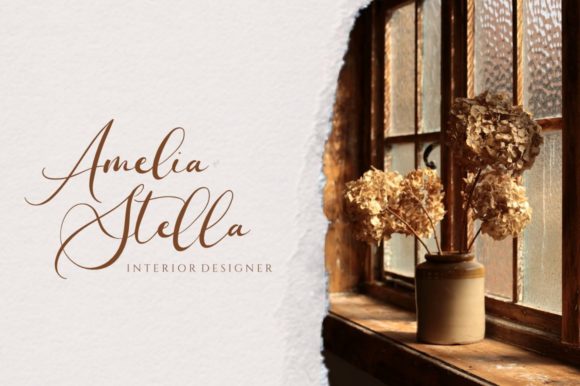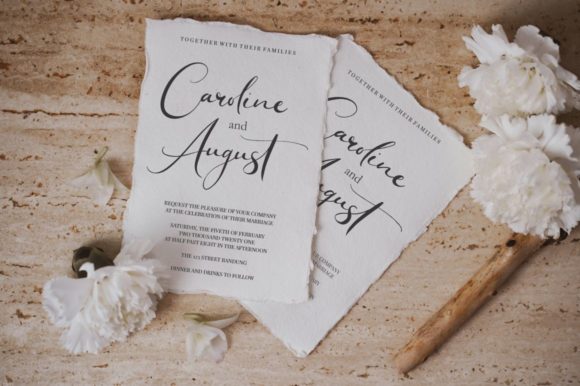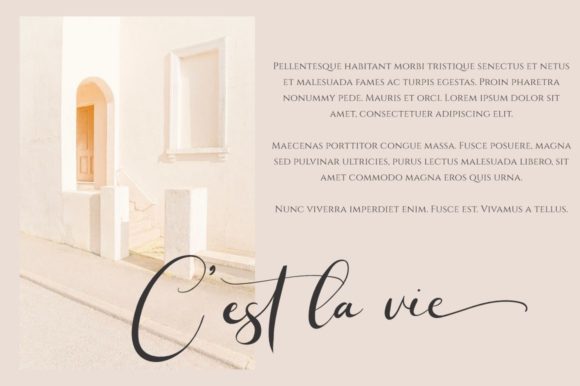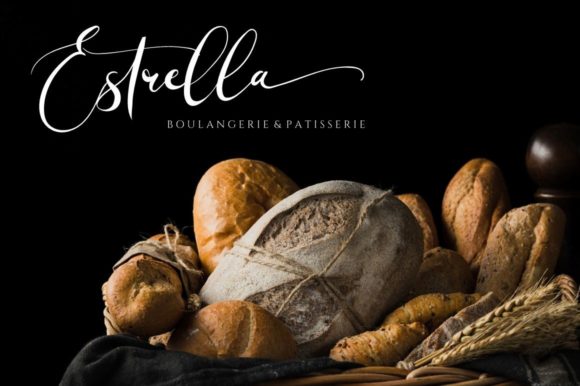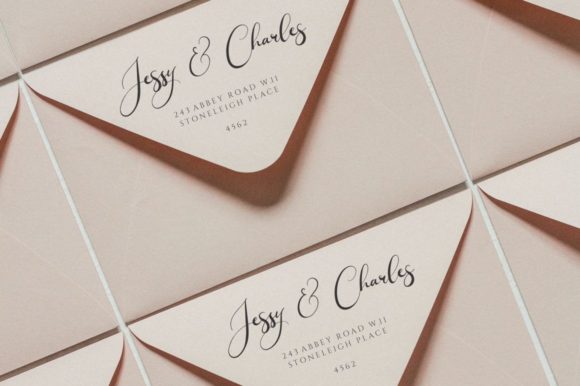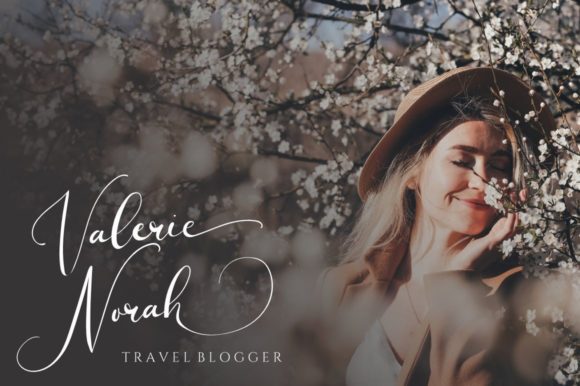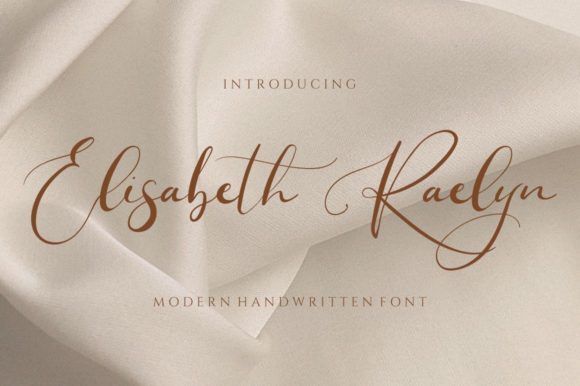
Introducing Elisabeth Raelyn Font: Elevate Your Designs with Elegance
Are you on the hunt for a font that exudes luxury and sophistication? Look no further than the Elisabeth Raelyn Font, a beautiful light handwritten font that is sure to make your design projects shine. With its unique feel and stunning impact, this font is perfect for designers and crafters who want to add a touch of elegance to their work.
What Makes Elisabeth Raelyn Font So Special?
Elisabeth Raelyn Font is a one-of-a-kind font that boasts a light, airy feel that is both modern and refined. Its handwritten style gives it a personal touch, making it perfect for projects that require a human touch. Whether you’re working on a branding project, a wedding invitation, or a packaging design, this font is sure to impress.
The Power of PUA Encoding
One of the standout features of Elisabeth Raelyn Font is its PUA (Private Use Area) encoding. This means that you can access a wide range of glyphs and ligatures with ease, giving you even more creative freedom to experiment with different designs. With PUA encoding, you can unlock the full potential of this font and take your designs to the next level.
Elisabeth Raelyn Font is incredibly versatile, making it suitable for a wide range of design projects. Here are just a few ideas to get you started:
- Branding and logos: Create a luxurious brand identity with Elisabeth Raelyn Font, perfect for high-end fashion, beauty, or lifestyle brands.
- Wedding and event invitations: Add a touch of elegance to your wedding or event invitations with this beautiful font.
- Packaging design: Use Elisabeth Raelyn Font to create stunning packaging designs that stand out on store shelves.
- Stationery and cards: Create beautiful stationery and cards that showcase your brand’s personality.
Why Choose Elisabeth Raelyn Font?
With so many fonts on the market, why choose Elisabeth Raelyn Font? Here are just a few reasons why designers and crafters love this font:
- Unique and elegant: Elisabeth Raelyn Font is a one-of-a-kind font that adds a touch of luxury to any design project.
- Easy to use: With PUA encoding, you can access a wide range of glyphs and ligatures with ease.
- Versatile: This font is suitable for a wide range of design projects, from branding and logos to wedding invitations and packaging design.
| Font Name | Elisabeth Raelyn Font |
| Author | Reyrey Blue |
In conclusion, Elisabeth Raelyn Font is a beautiful light handwritten font that is perfect for designers and crafters who want to add a touch of elegance to their work. With its unique feel, stunning impact, and PUA encoding, this font is sure to elevate your designs and make them stand out from the crowd. Whether you’re working on a branding project, a wedding invitation, or a packaging design, Elisabeth Raelyn Font is the perfect choice.